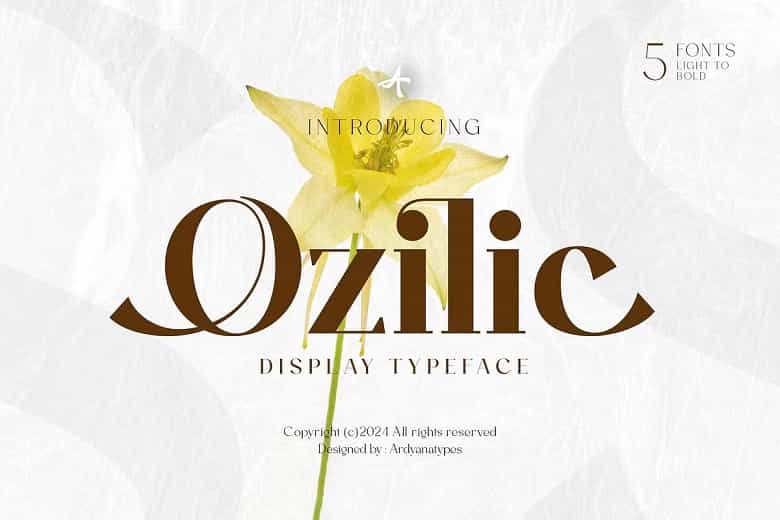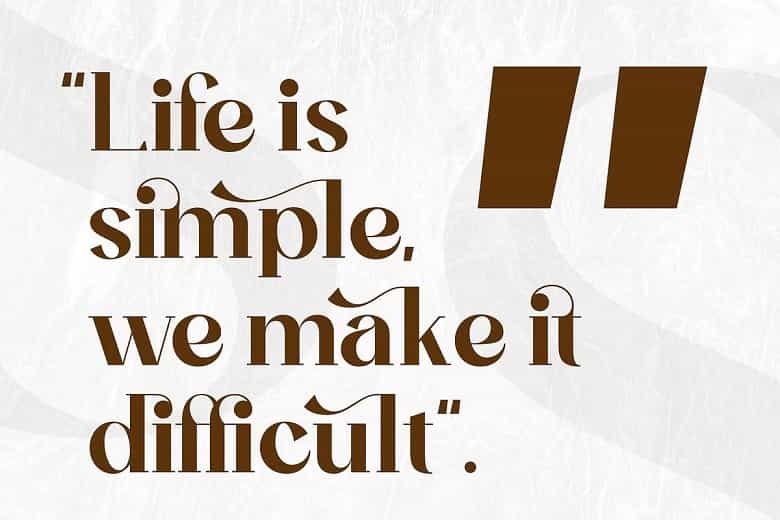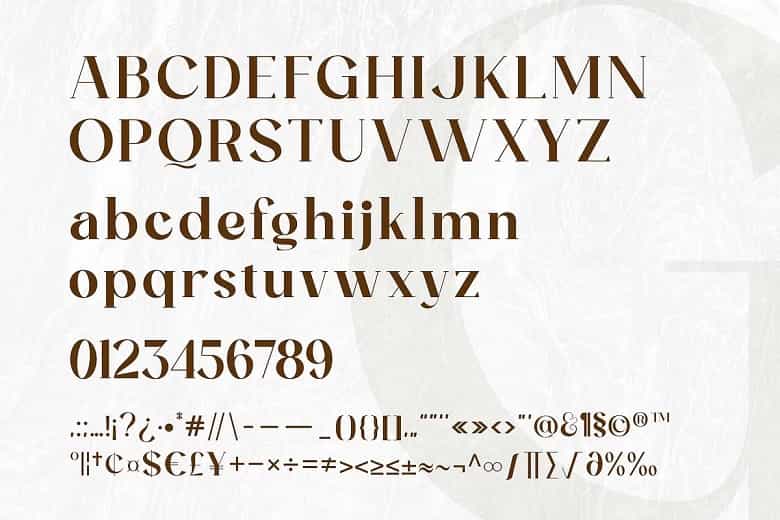
Ozilic is a modern elegance of a display serif font created to cater the need of numerous creative projects. Featuring the modern font styles, this font contains a full set of OpenType features that will make your design work more convenient. Whether you are designing posters, movies, books, media branding, or giant projects, Ozilic works well with any design type.